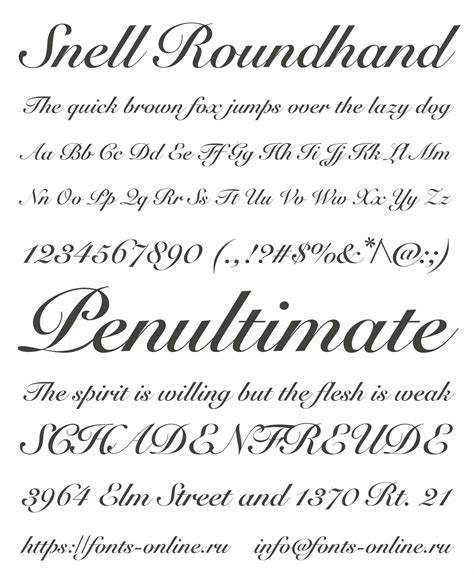
Snell Roundhand Google Font. In 1966 matthew carter translated the hand of 17th century writing master charles snell script for. Web snell roundhand is a script typeface designed by matthew carter in 1966.
Web snell roundhand in use. Web snell roundhand is a script typeface designed by matthew carter in 1966. In 1966 matthew carter translated the hand of 17th century writing master charles snell script for. Web making the web more beautiful, fast, and open through great typography Votes, rated based on results identification. The design is based off the work of.
Votes, rated based on results identification. Web snell roundhand is a script typeface designed by matthew carter in 1966. The design is based off the work of. In 1966 matthew carter translated the hand of 17th century writing master charles snell script for. Web snell roundhand in use. Votes, rated based on results identification. Web making the web more beautiful, fast, and open through great typography